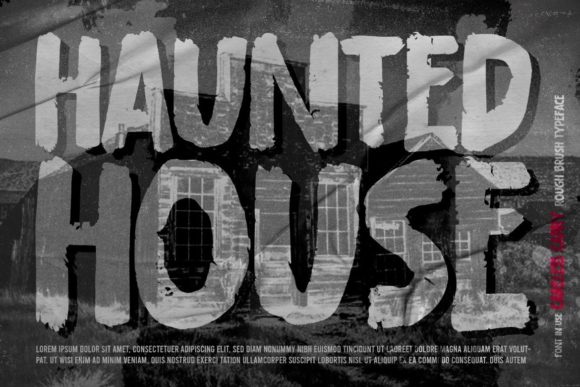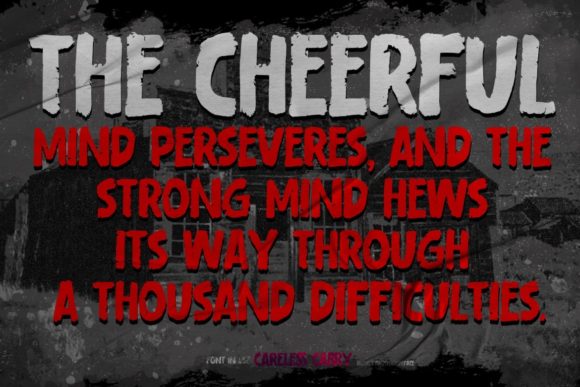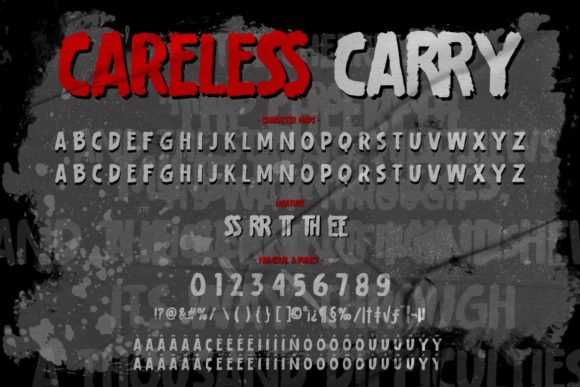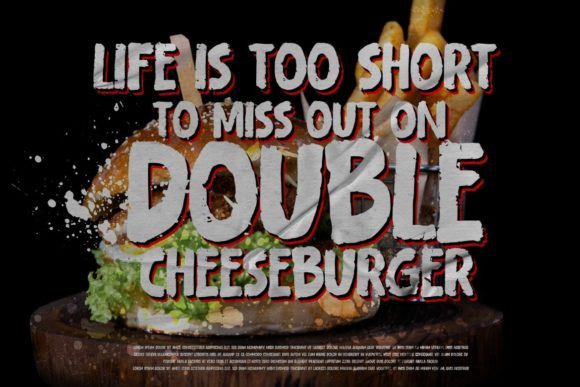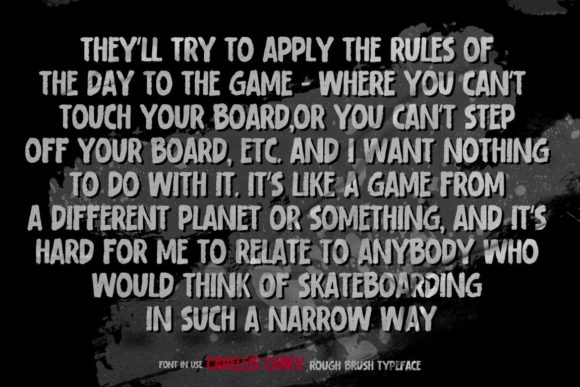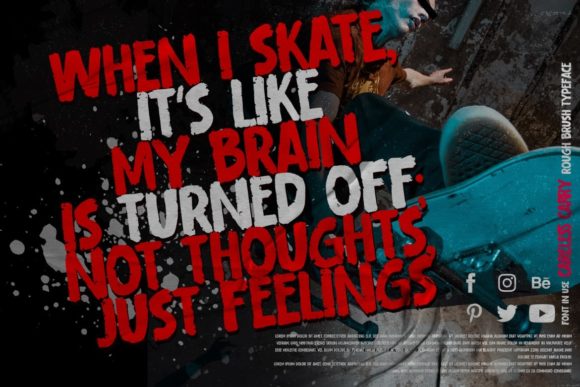
The Perfect Blend of Style and Substance: Introducing the Careless Carry Font
Have you ever found yourself stuck on a design project, struggling to bring your vision to life? You’ve got a clear idea in your head, but the words just won’t seem to come together on the page. It’s a frustrating feeling, but one that’s all too familiar for designers.
Enter the Careless Carry Font – a bold, brushed display font that’s ready to elevate your creations and take your design to the next level. With its cool, stylish aesthetic, this font is the perfect addition to any designer’s library, capable of adding a touch of sophistication to even the most mundane topics.
Careless Carry Font Key Features
- Font Family: Careless Carry Font is a sans-serif typeface.
- Character Set: Supports a wide range of languages, including Latin, Greek, and Cyrillic alphabets.
- Unique Characteristics: Features a unique, rounded sans-serif design with a relaxed feel, making it suitable for informal and casual applications.
Design Review: Careless Carry Font
First impressions matter, and the Careless Carry Font delivers with its playful, handwritten feel ✨. The font’s imperfections and quirks add a touch of personality that can elevate designs from the ordinary to the exceptional.
One of the standout features of Careless Carry is its versatility ✨. It can be used for a wide range of applications, from food and drink branding to wedding invitations and social media graphics. The font’s friendly, approachable nature makes it perfect for designs that require a sense of warmth and approachability.
However, there are some limitations to consider ⚠️:
- Legibility can be an issue in certain contexts, particularly at smaller font sizes.
- The font’s imperfections can sometimes be overwhelming, making it difficult to read.
- While Careless Carry is versatile, it may not be the best choice for designs that require a more formal or professional tone.
Overall, Careless Carry Font is a fun, creative option that can add a unique touch to designs ✨. While it may not be suitable for every project, it’s definitely worth considering for designs that require a playful, handwritten feel.
The Careless Carry Font is ideal for creative and playful designs, such as:
– Brochures and flyers